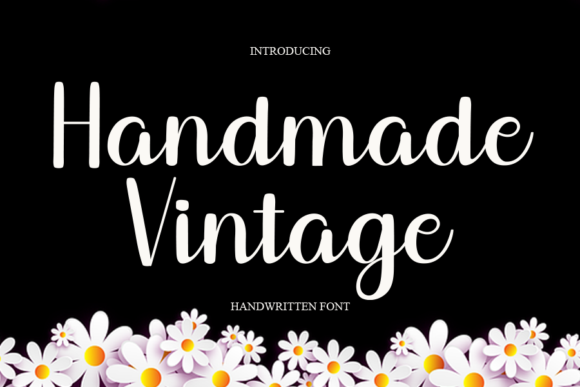
Welcome to the beautiful realm of Handmade Vintage Font, a script font family meticulously designed to bring an exquisite touch of elegance to your creative expressions. Whether you're a passionate Instagrammer seeking captivating fonts to elevate your visual storytelling or a fervent DIY enthusiast searching for calligraphy scripts to transform your projects into masterpieces, Handmade Vintage Font is the ultimate choice for you.
Immerse yourself in the enchanting world of Handmade Vintage Font, where letters dance with grace and sophistication, captivating the hearts of beholders. Each meticulously crafted character exudes a timeless charm, whispering tales of romance, nostalgia, and timeless beauty. Experience the joy of transforming ordinary words into exquisite works of art with every stroke of this enchanting font.
Picture this: you're planning the most special day of your life, the day when you say "I do." As you envision the perfect wedding venue, you know that every detail must be flawless. From the delicate lace of your dress to the breathtaking floral arrangements, each element contributes to creating an unforgettable atmosphere. And amidst this symphony of beauty, the fonts you choose for your wedding hangers hold the power to elevate the occasion to new heights of elegance.
With Handmade Vintage Font, you can personalize your wedding hangers with exquisite calligraphy that echoes the timeless romance of your love story. Imagine the names of you and your beloved intertwined in a graceful script, adorned with intricate flourishes that speak of your enduring bond. These hangers will serve as cherished keepsakes, reminders of the day when love blossomed in full bloom.
Beyond the realm of weddings, Handmade Vintage Font is a versatile companion for a myriad of creative endeavors. Whether you're designing invitations for a special event, creating personalized gifts for loved ones, or simply seeking a touch of elegance in your digital creations, this font has the power to transform your ideas into breathtaking realities.